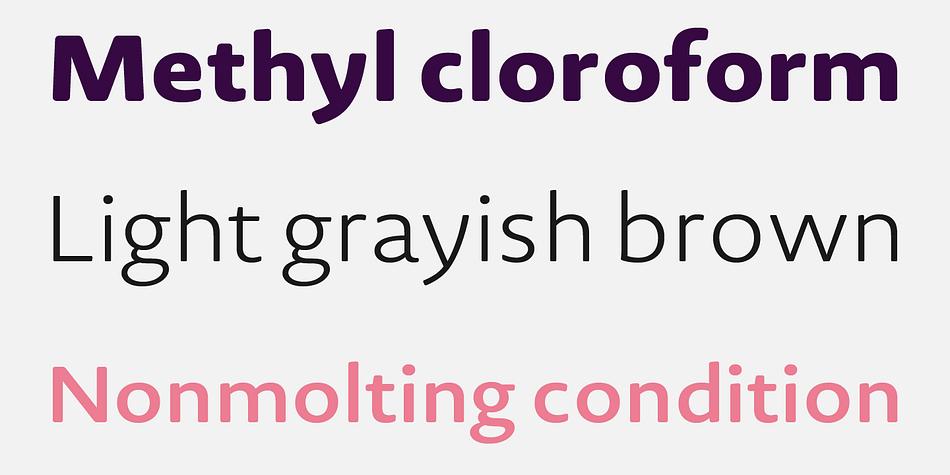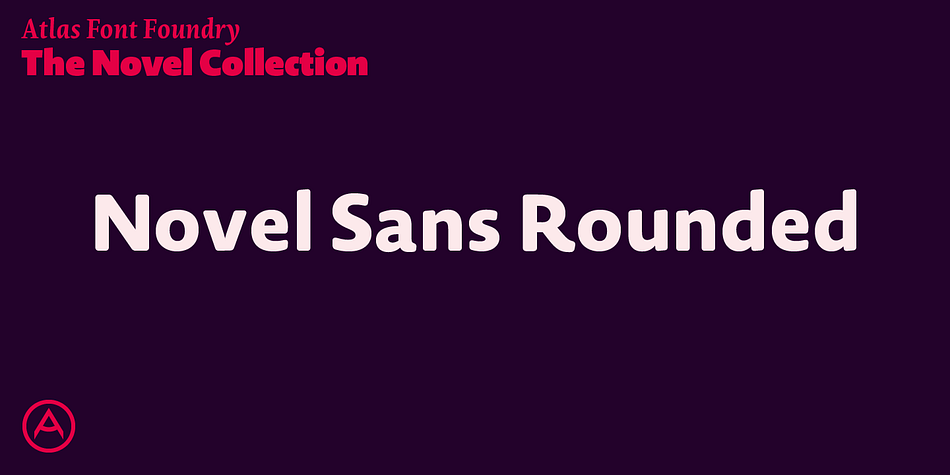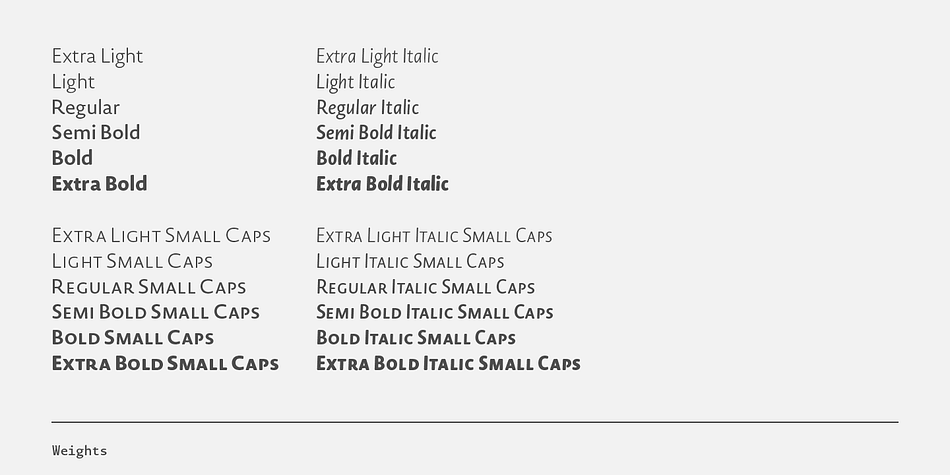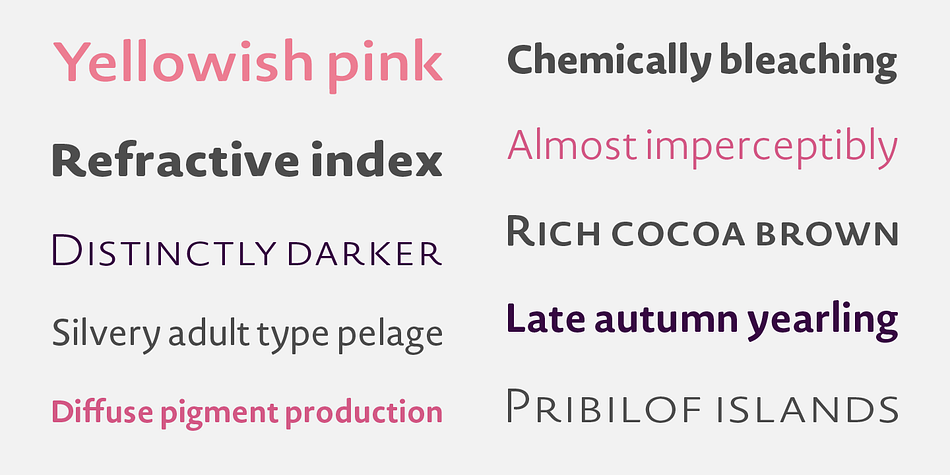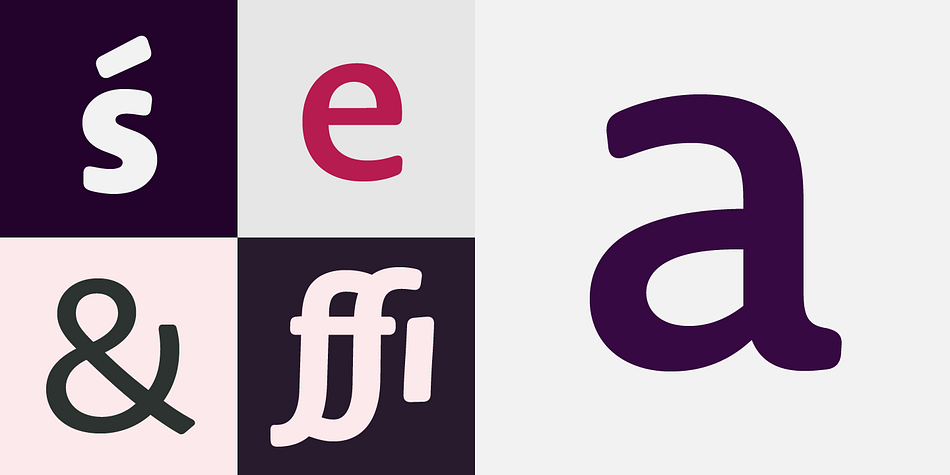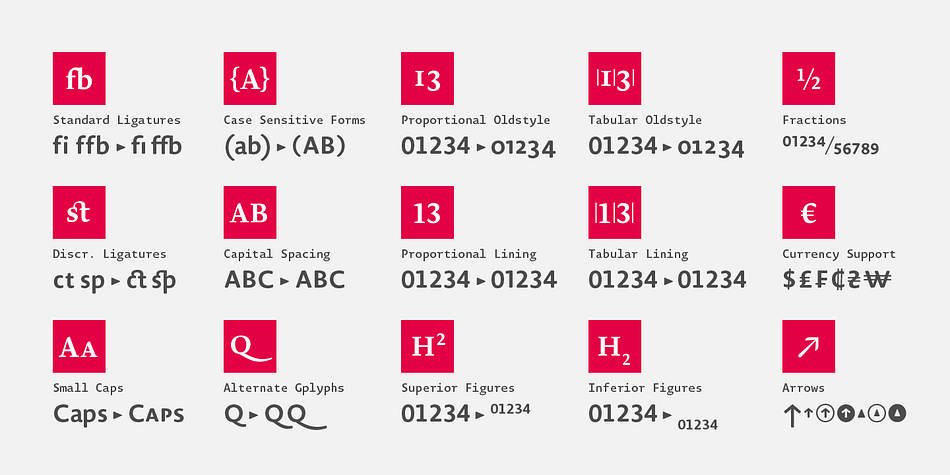
Designed by Christoph Dunst, Novel Sans Rounded Pro is a sans serif font family. This typeface has twelve styles and was published by Atlas Font Foundry.
Novel Sans Rounded is the soft humanist grotesque typeface family within the largely extended award winning Novel Collection, also containing Novel, Novel Sans, Novel Sans Hair, Novel Sans Condensed, Novel Display, Novel Display Condensed, Novel Display Extra Condensed, Novel Display Compressed, Novel Display Extra Compressed, Novel Mono and Novel Sans Office.
Many similarities with the other typeface families within the Novel Collection enable designers to combine the families and reach highest quality in typography. The fine gradation of 6 weights enable designers to create fine legible typography and combine the design with other members of the Novel Collection to reach highest quality in typography.
Novel Sans Rounded [1020 glyphs] comes in 12 styles and contains small caps, an extra set of alternate glyphs, many ligatures, lining figures [proportionally spaced and monospaced], hanging figures [proportionally spaced and monospaced], small caps figures [proportionally spaced and monospaced], positive and negative circled figures for upper and lower case, superior and inferior figures, fractions, extensive language support, arrows for uppercase and lowercase and many more OpenType™ features.